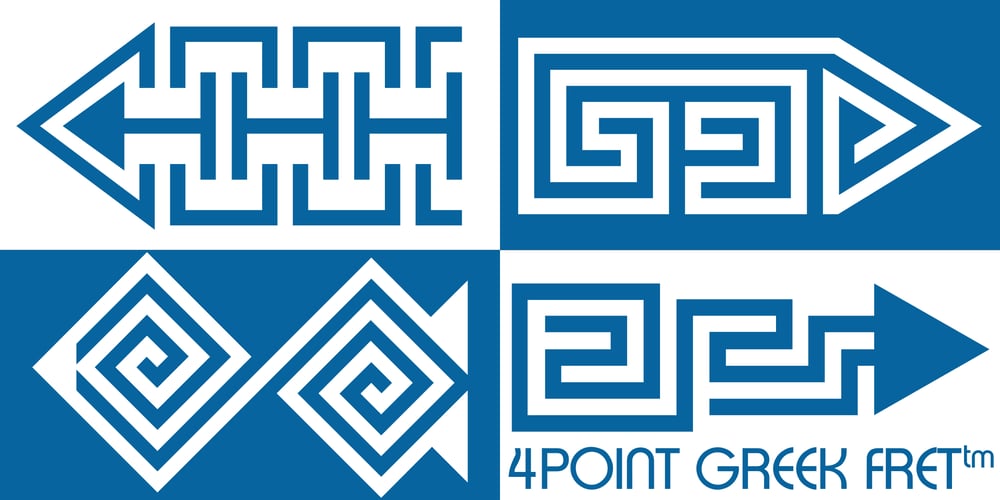
4 Point Greek Fret
4 Point Greek Fret font
4 Point Greek Fret Font Family was designed by Denise Koehler and published by Deniart Systems. 4 Point Greek Fret contains 1 styles and family package options. A whimsical array of pointers designed with semi-traditional Greek fret pattern (up/down/left/right) – great for adding directions or pointers to documents, maps, posters, greetings, or simply used as decorative elements. See also 4Point Deco and 4Point Florals.